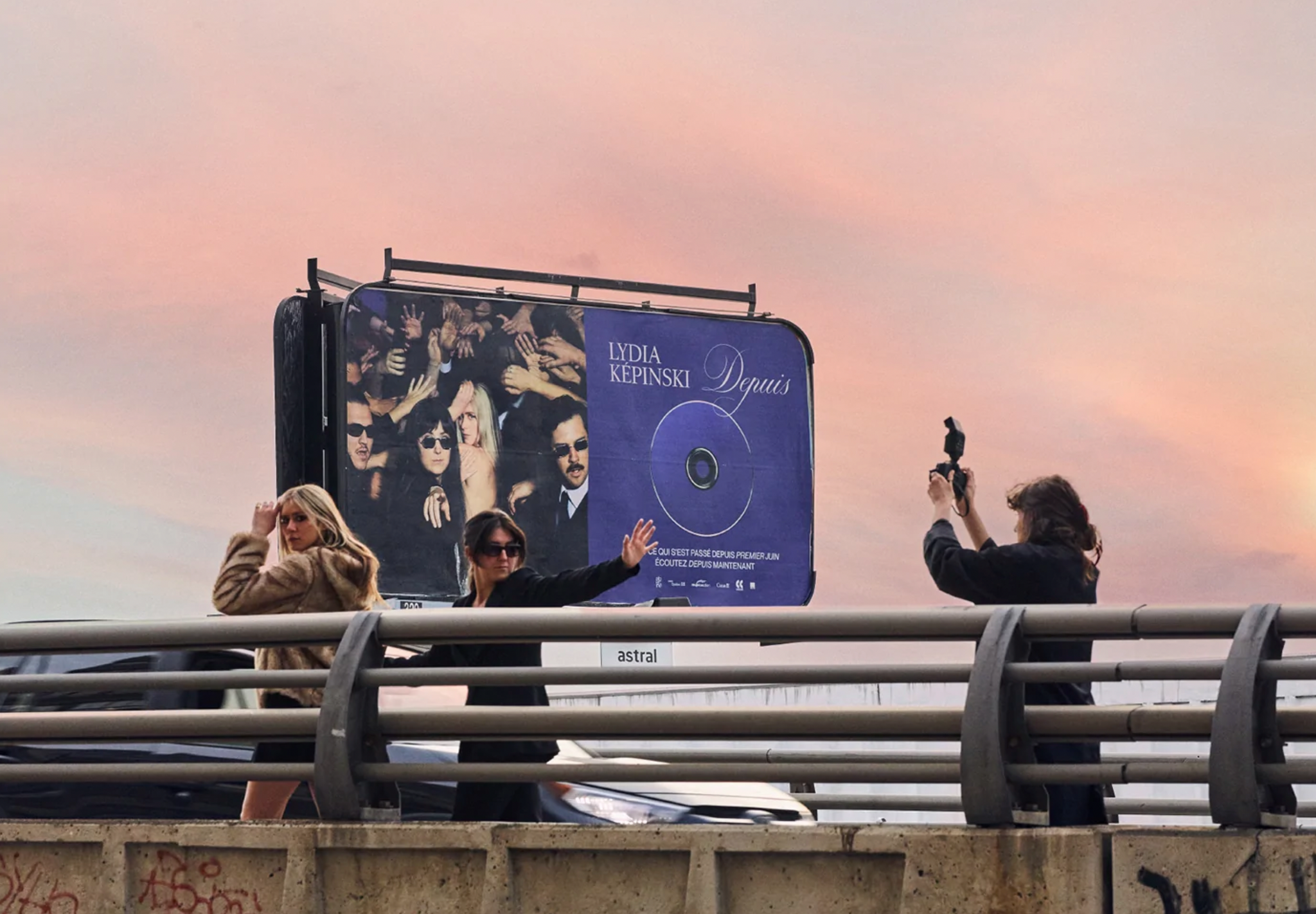
Inspired by the color blue, we created the highly chic graphic universe of Lydia Képinski's second album.
Rich in poetry, Depuis is an amalgam of dancing auto-biographical stories on polished electro rhythms.
Oscillating between a brutal and elegant aesthetic, the graphic design relates as much to the words as to the music. The typographic work accompanies the photography by borrowing these codes from the disco of the 70s, with a hint of irony.